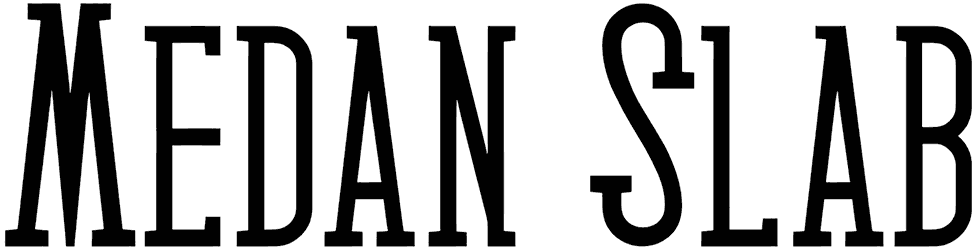
Medan Slab Font
With classic and original words, you can easily display any design you have in mind. As a slab serif font, Medan Slab has a unique and retro latter style that can be catchy for many subjects. There is no offer for lowercase letters, but with two versions, Medan Slab can fit a lot of novel items, namely posters, covers, logos, and the like.